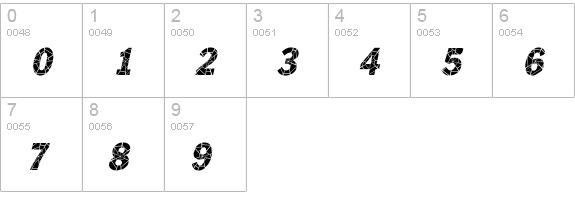
Philadelphia Cracked-Condensed Italic Font Details
Philadelphia Cracked-Condensed Italic is a distinctive, condensed-width, italic variant in the Philadelphia typeface family \xE2\x80\x94 well suited to design and typography projects.
Introducing Philadelphia Cracked-Condensed Italic, a captivating and bold font that adds a touch of edginess and uniqueness to any creative project. This stunning typeface is perfect for those looking to make a bold statement and stand out from the crowd. With its cracked and condensed design, Philadelphia Cracked-Condensed Italic exudes a sense of ruggedness and raw energy. Its italic styling adds a sense of movement and dynamism, making it an excellent choice for headlines, titles, and attention-grabbing text. This font is not only visually striking but also highly versatile. Its condensed nature allows for maximum impact in limited space, making it ideal for posters, flyers, logos, and branding projects. Whether you're designing for a music festival, a gritty urban fashion brand, or a rebellious rock band, Philadelphia Cracked-Condensed Italic will help you capture the essence of your concept with its distinctive and expressive style. The best part? Philadelphia Cracked-Condensed Italic is freely available to download at FontsMarket.com. Yes, you read that right! This incredible font can be yours without any cost, making it an absolute steal for designers, artists, and creatives on a budget. Its accessibility ensures that anyone can access and use this font to enhance their projects and give them that extra edge. So why wait? Embrace the unconventional and unleash your creativity with Philadelphia Cracked-Condensed Italic. Download it for free today at FontsMarket.com and let your designs speak volumes with its captivating and rebellious flair.